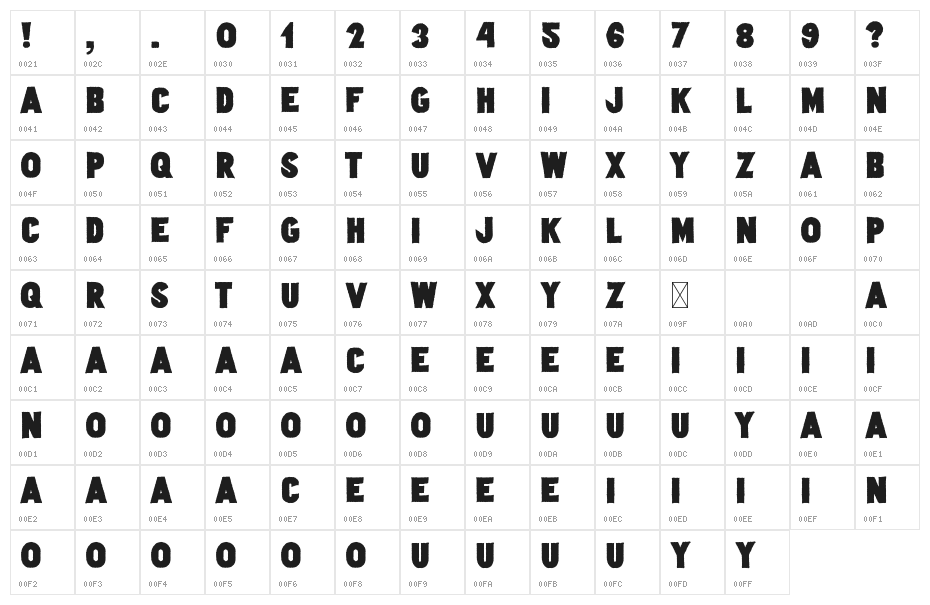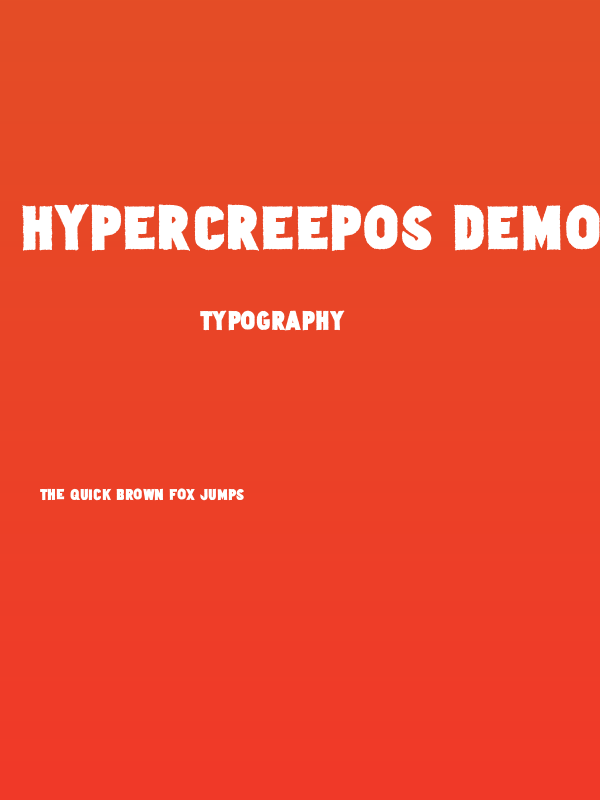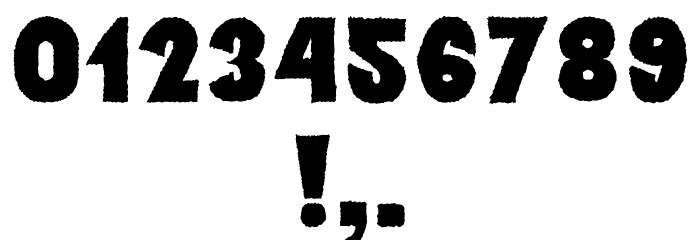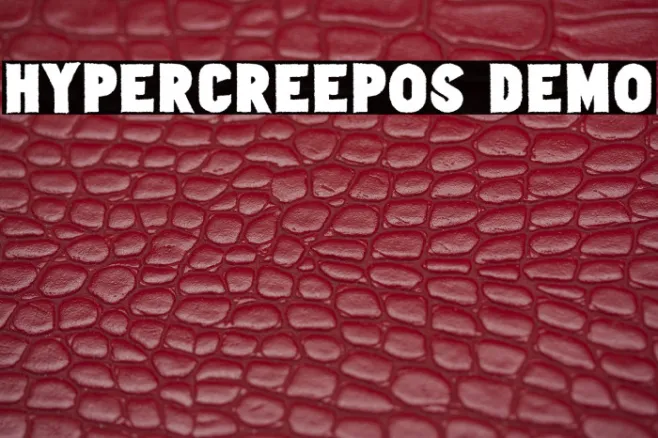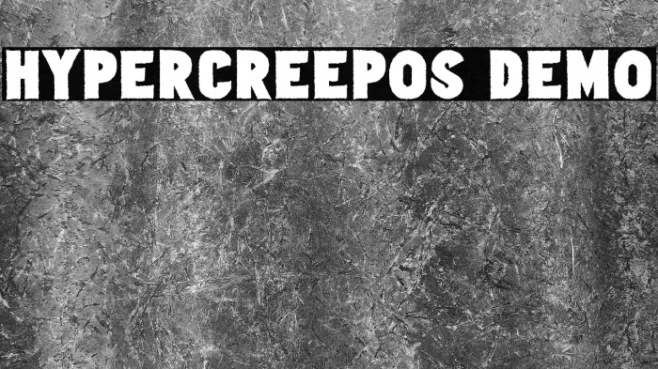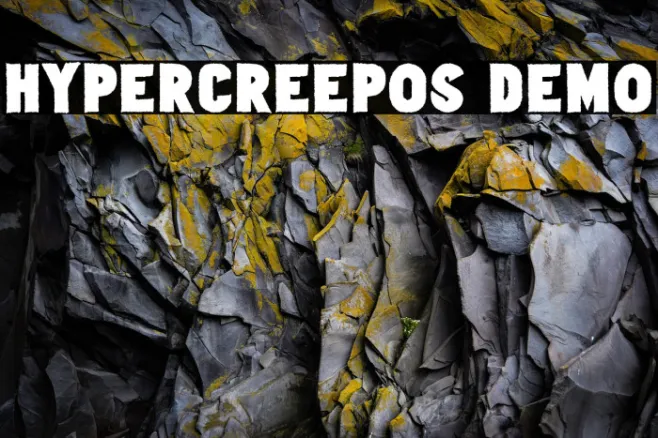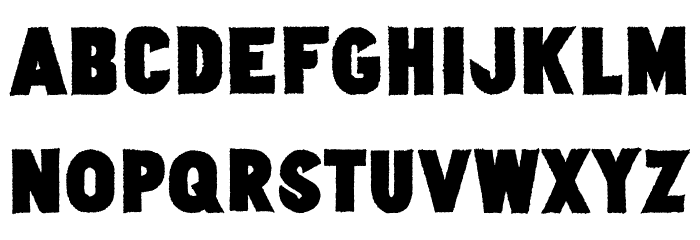
Hypercreepos Demo Font
Hypercreepos Demo Description
This font features a bold and rugged design with a distressed texture that gives it a unique, edgy appearance. The characters are thick and heavy, with uneven edges that create a sense of movement and dynamism. The uppercase letters are particularly striking, with a strong presence that commands attention. The numbers and special characters maintain the same bold style, ensuring consistency across all text elements. This font is ideal for projects that require a strong visual impact, such as posters, headlines, and branding materials. Its distinctive style makes it suitable for creative and unconventional designs.
| Overall Style | Edgy, Rugged, Distressed |
| Proposed Projects | Ideal for posters, headlines, branding, and creative design projects. |